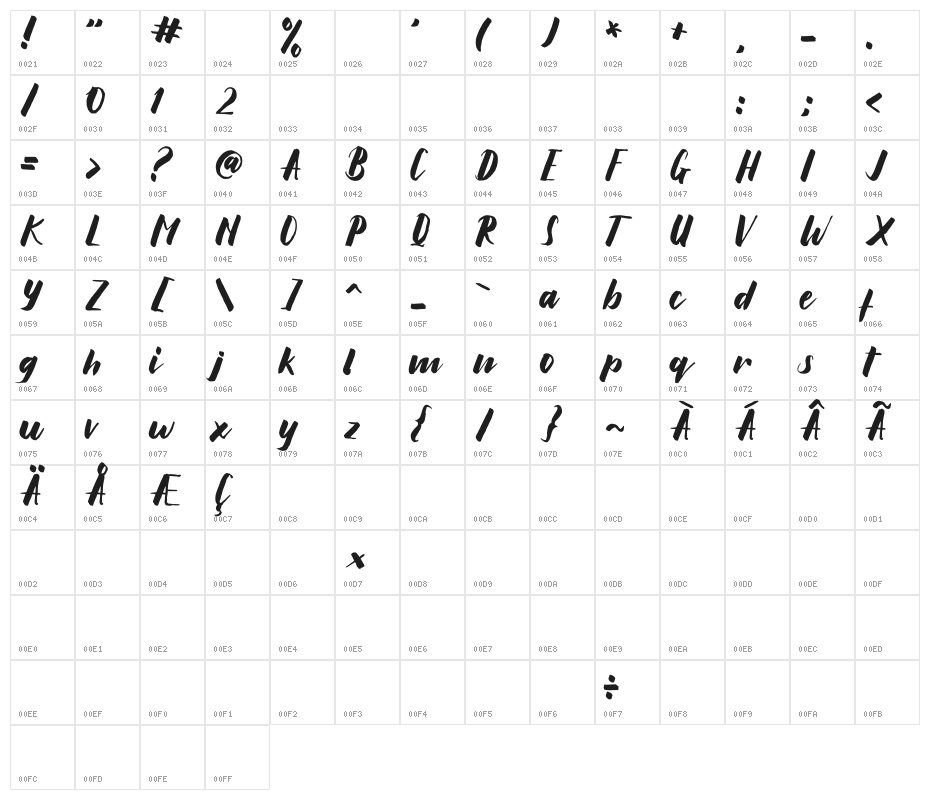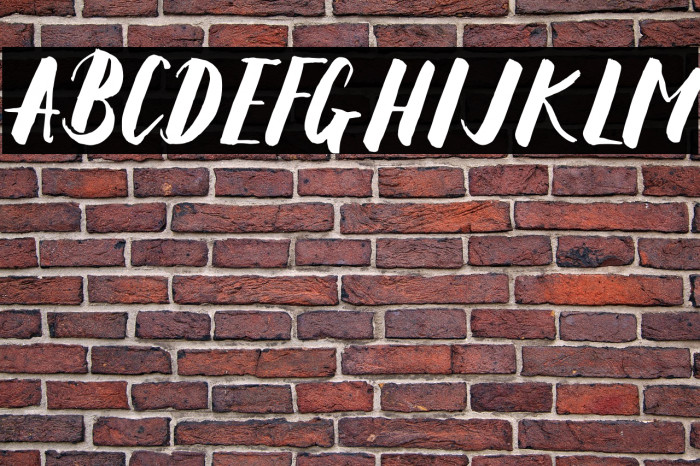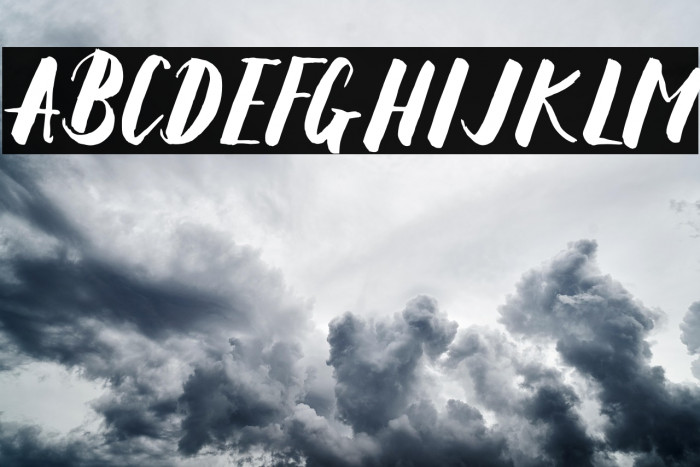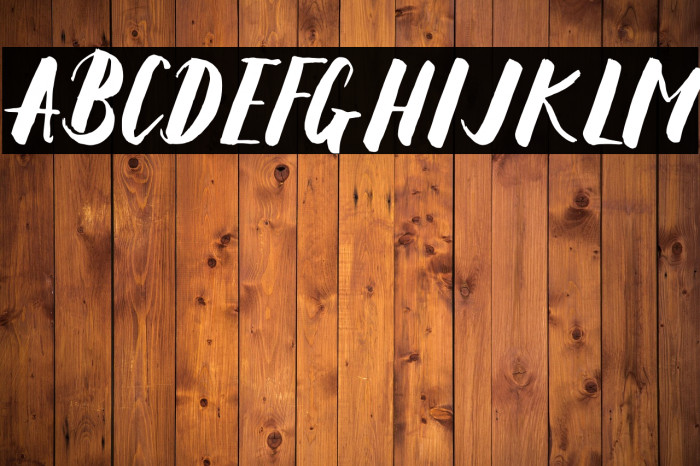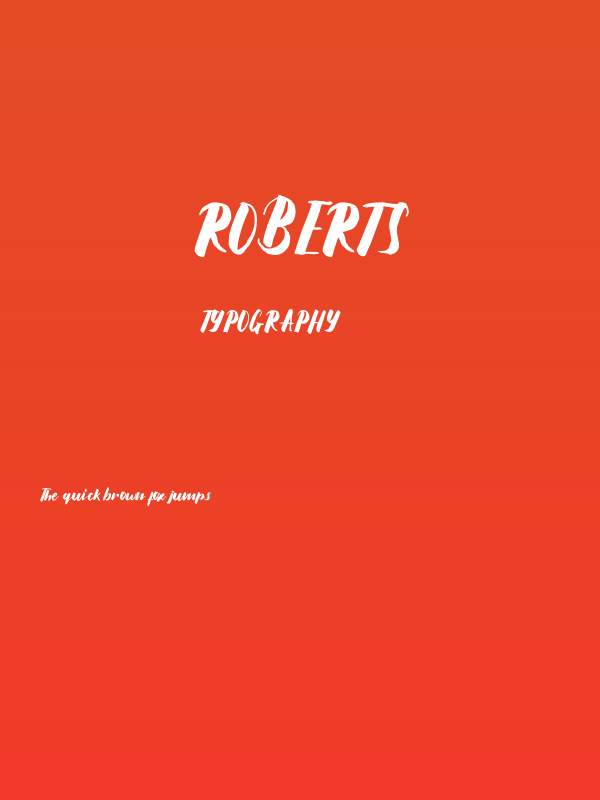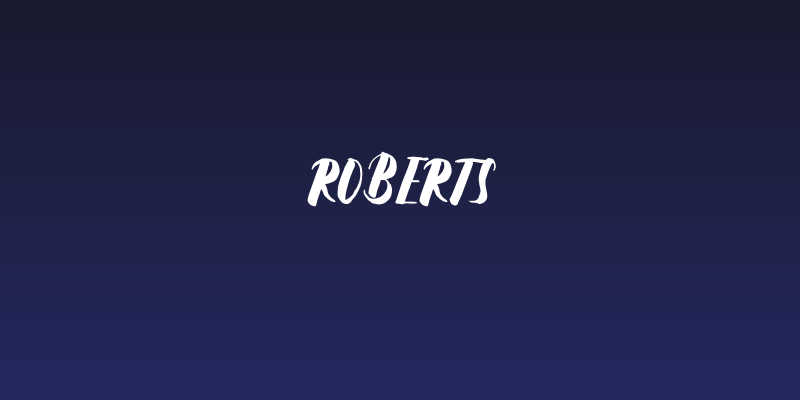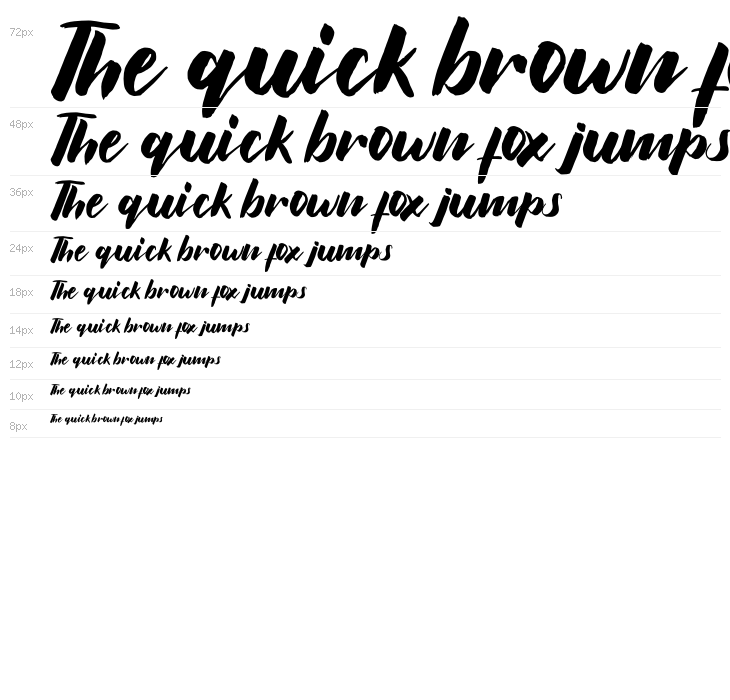
Roberts Font
Roberts Description
This font features a bold, expressive script style with a dynamic and flowing appearance. The characters are designed with a brush-like texture, giving them a hand-painted feel. The uppercase letters are tall and slightly slanted, while the lowercase letters maintain a consistent flow with smooth curves and sharp edges. The numbers and special characters are equally bold and maintain the same brush-like quality. This font exudes a sense of energy and creativity, making it ideal for projects that require a personal and artistic touch.
| Use Case | Logos, Headlines, Artistic projects |
| Proposed Projects | Ideal for branding, packaging, invitations, and artistic posters. |